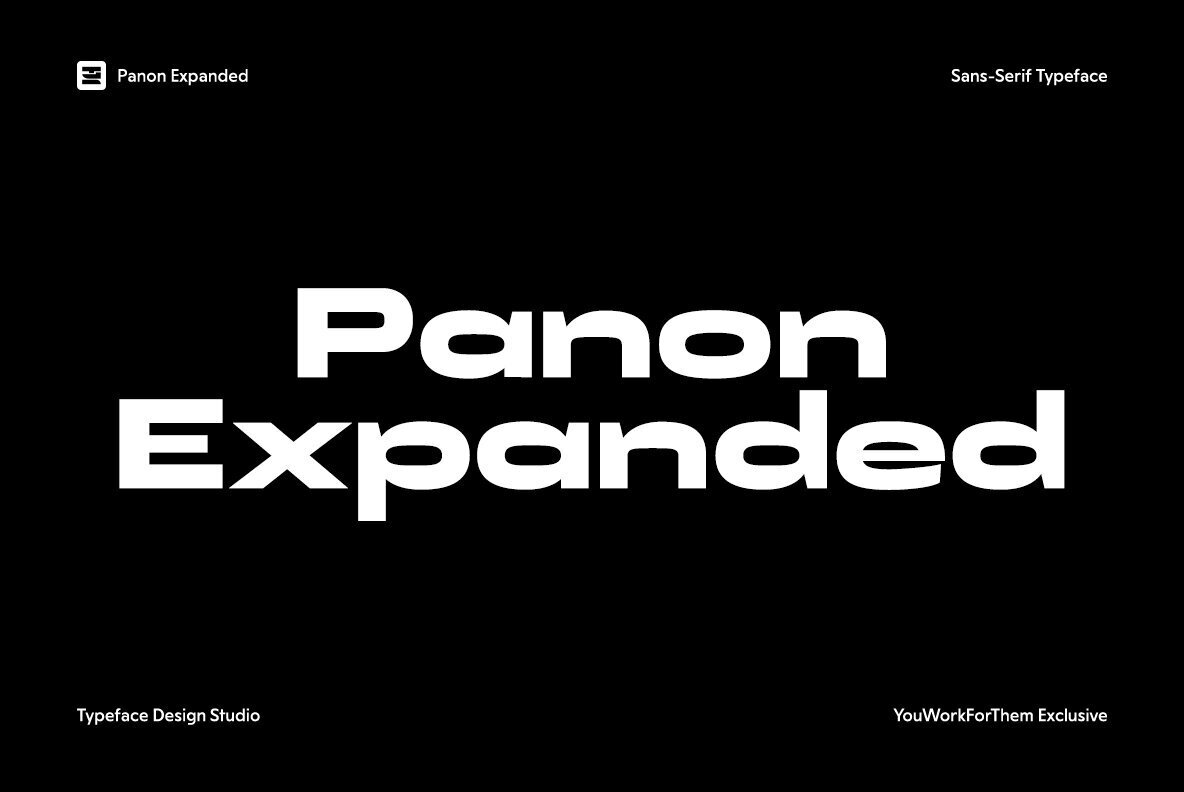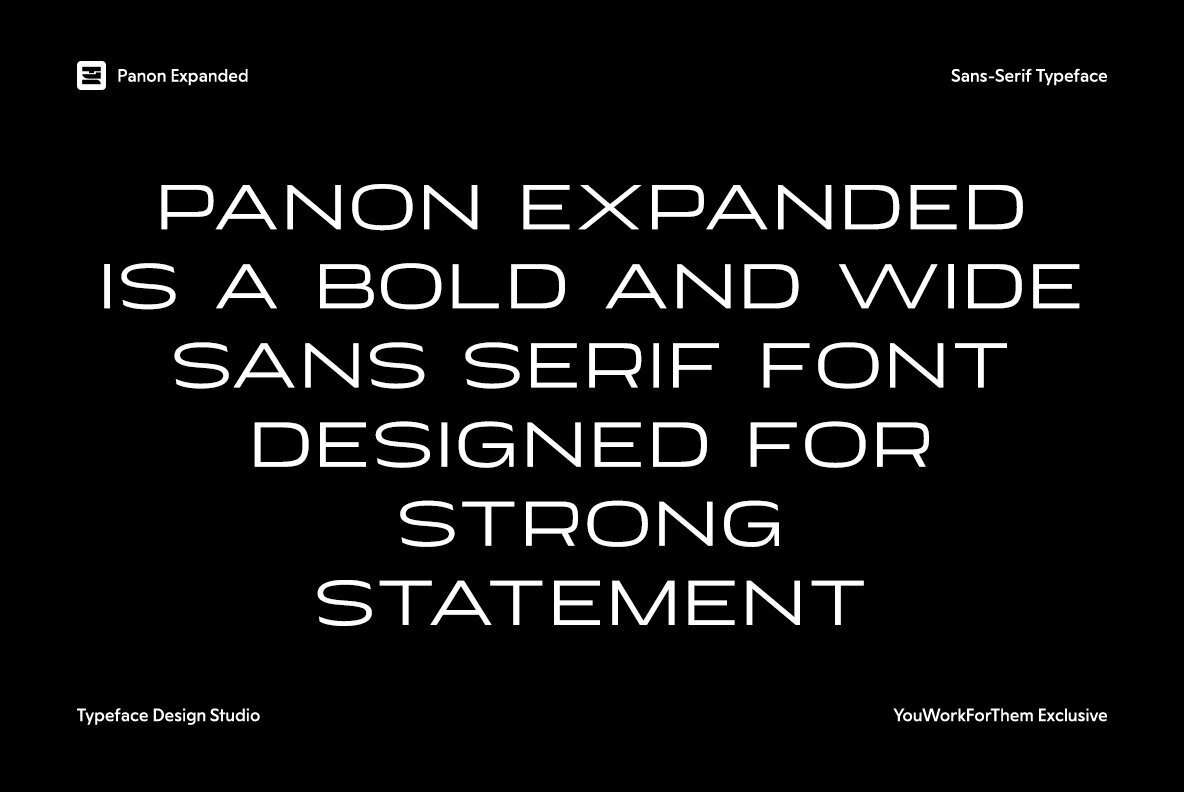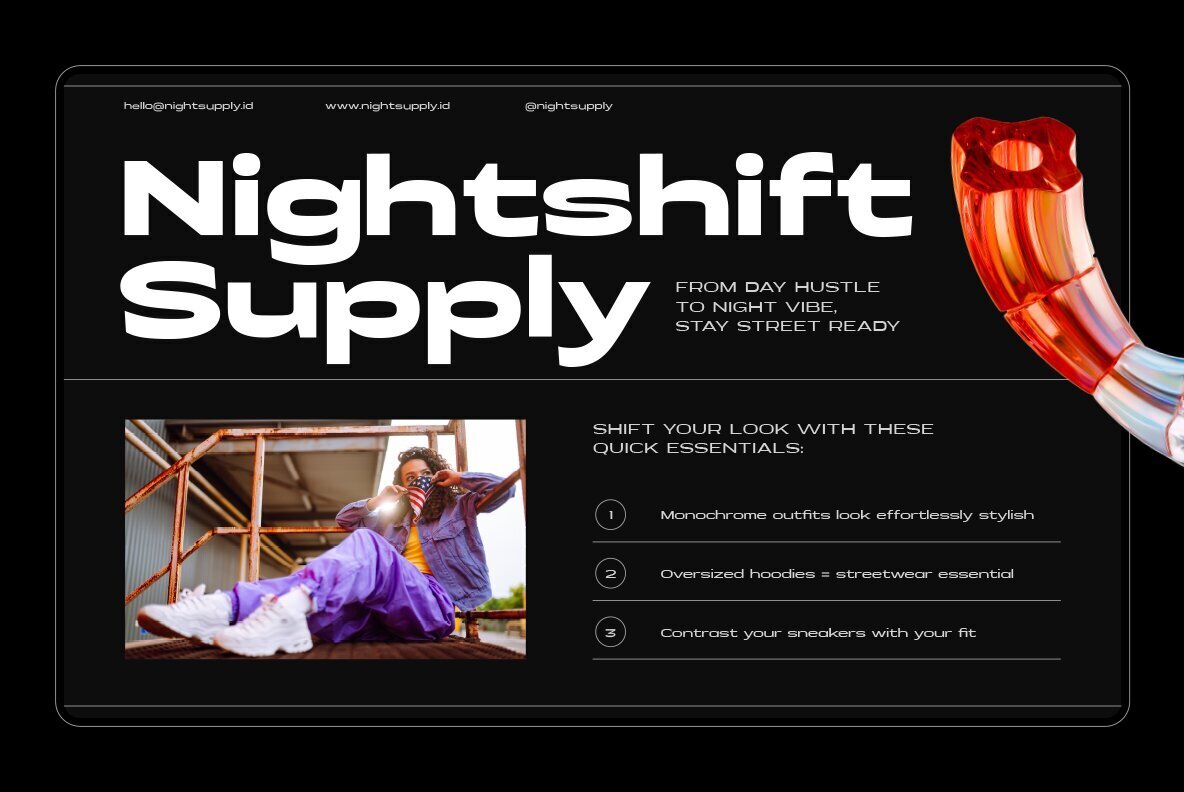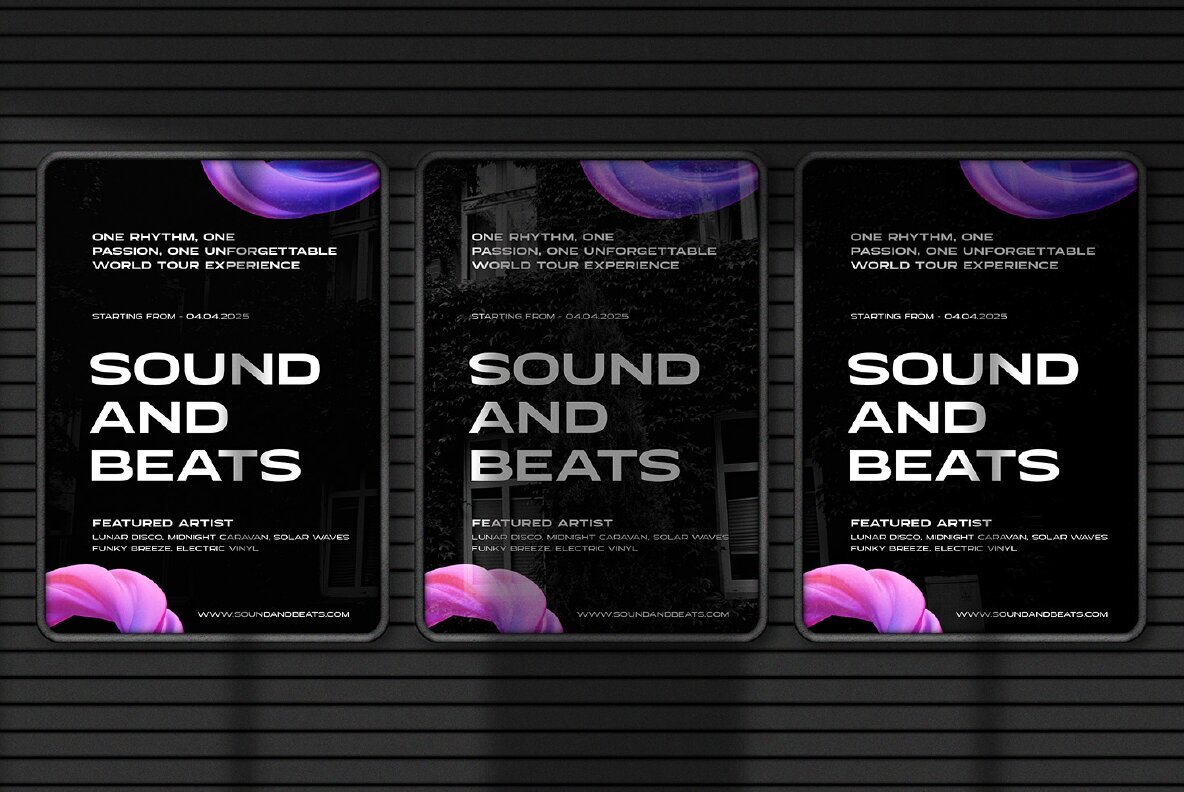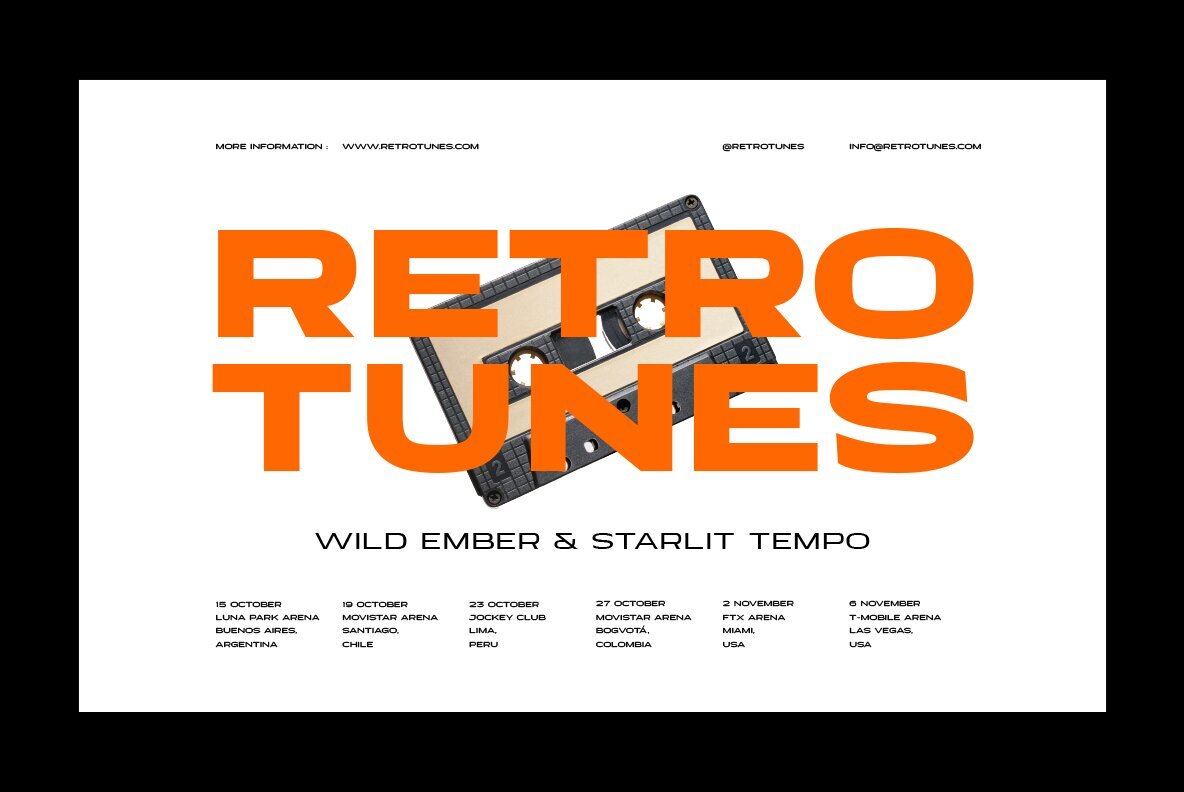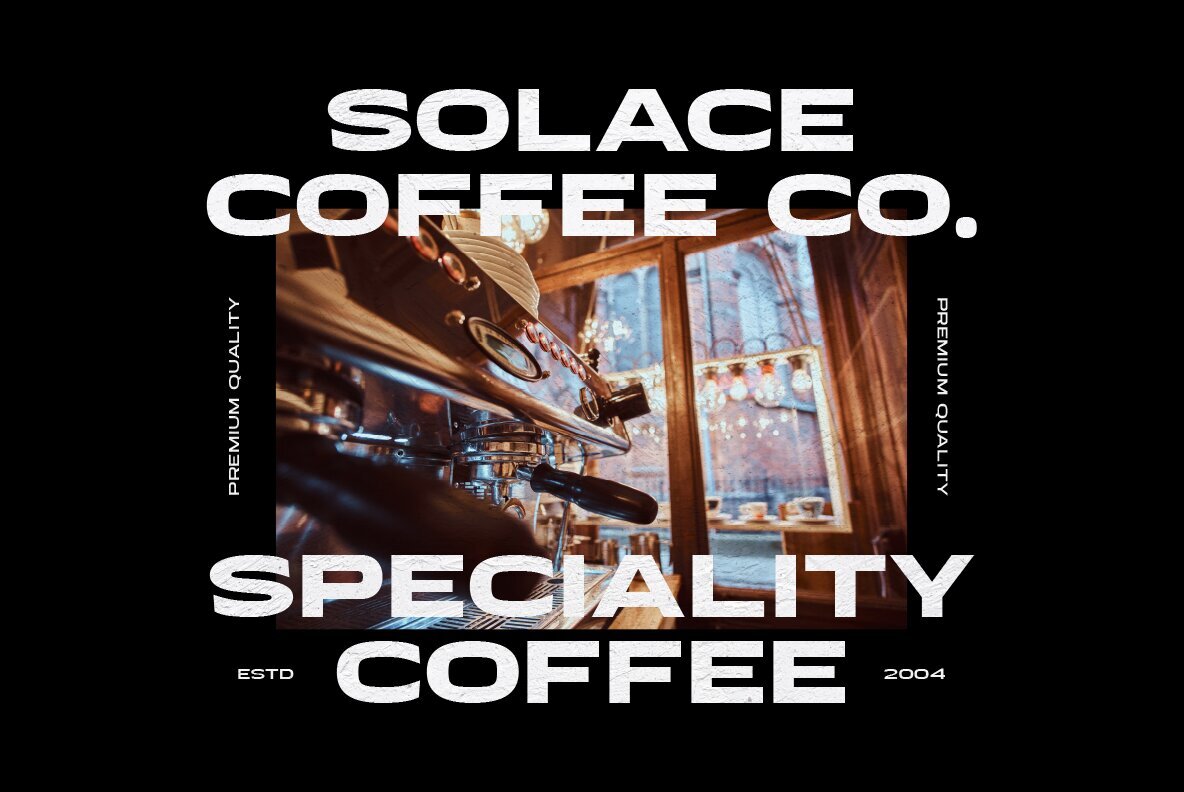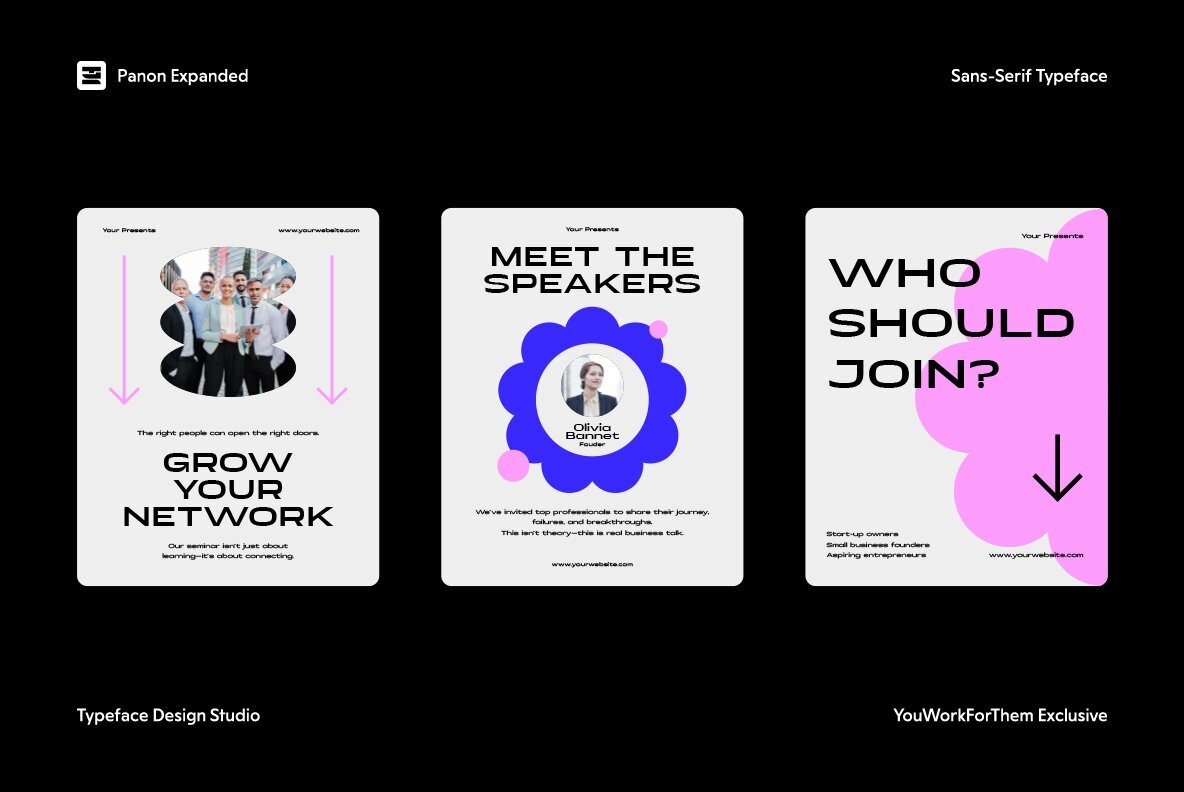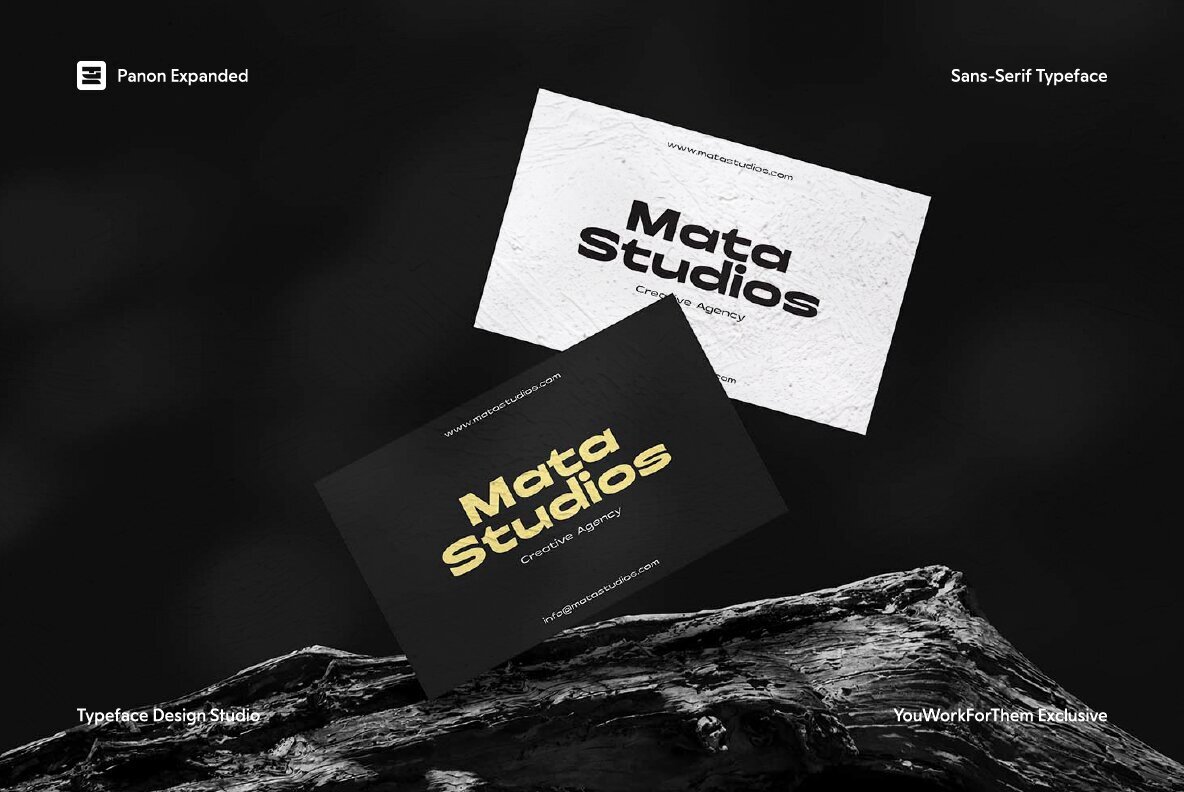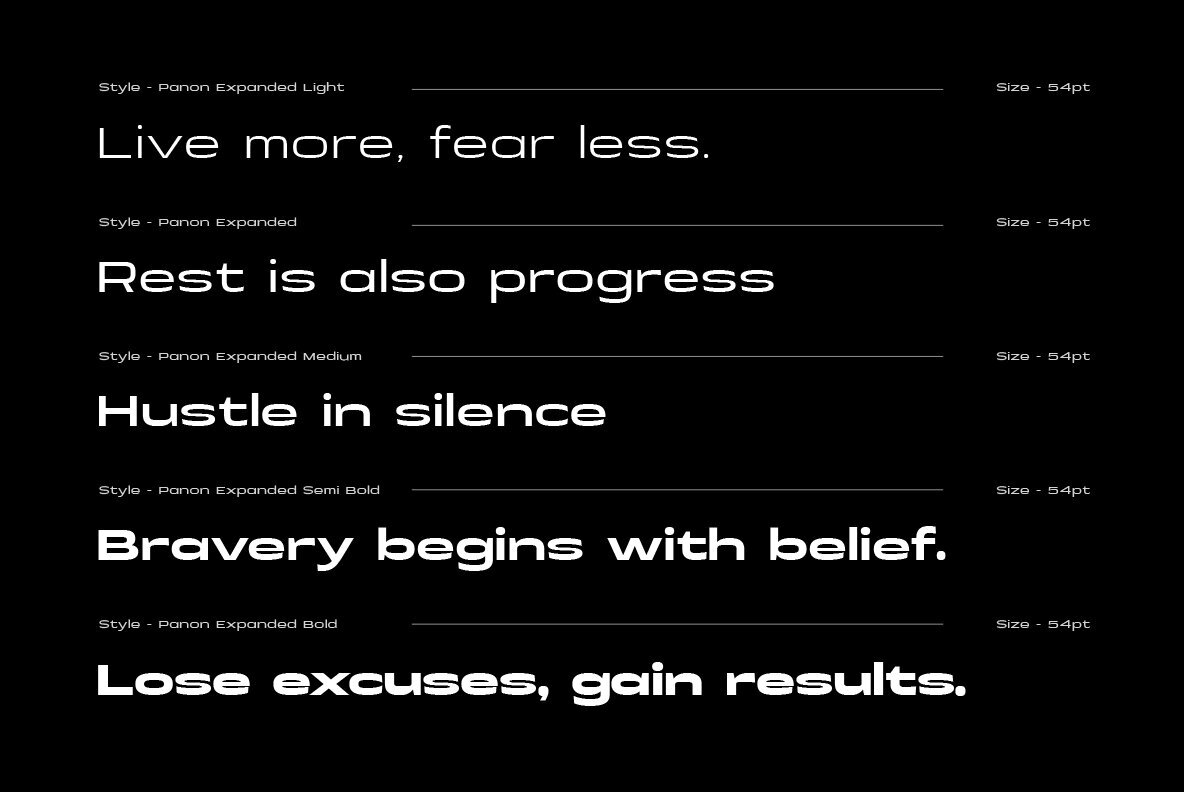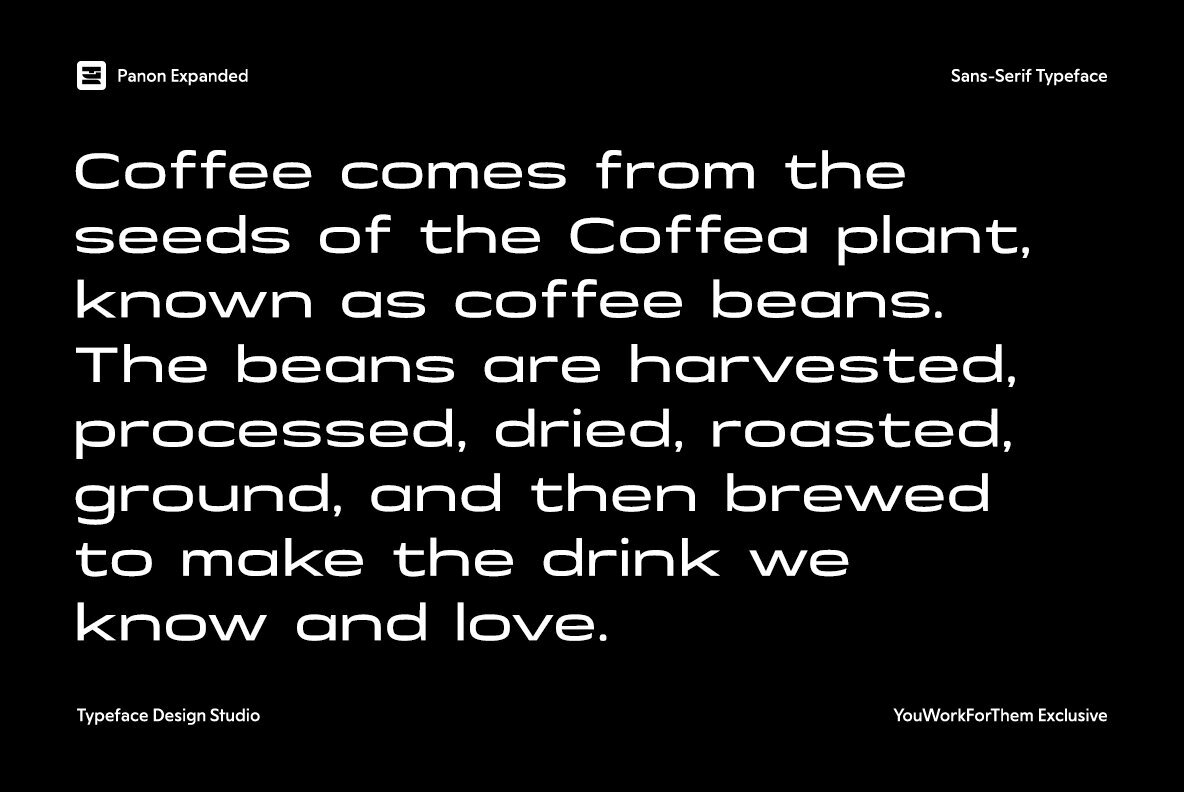
Panon Expanded Font
Panon Expanded is a wide sans serif font designed to make a statement with its blend of bold power and playful character. Ideal for logos, posters, sports, and branding, the font delivers impact with clarity. Featuring five weights and a variable option, this typeface adapts seamlessly to modern headlines and stylish covers. Inspired by the striking typography of bold posters, it infuses confidence and character into any project. This geometric sans-serif font features thin, clean lines with a modern aesthetic, perfect for digital and print applications. Its balance and open letterforms make it ideal for corporate branding, minimalist logos, and international-style editorial design. Use it for projects that require an elegant yet approachable typeface, emphasizing contemporary and cosmopolitan appeal.Panon Expanded: Bold Sans Serif With Playful Edge